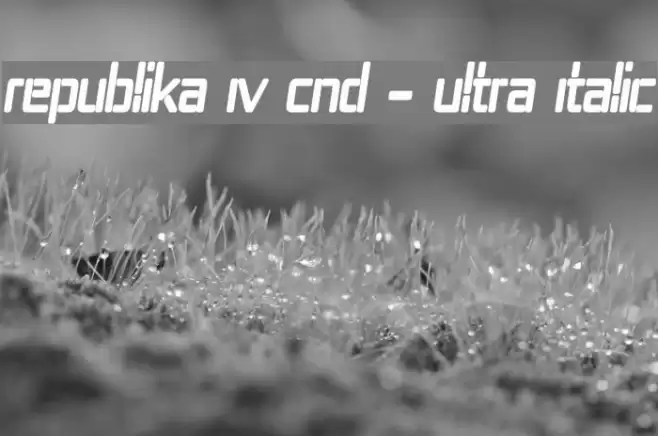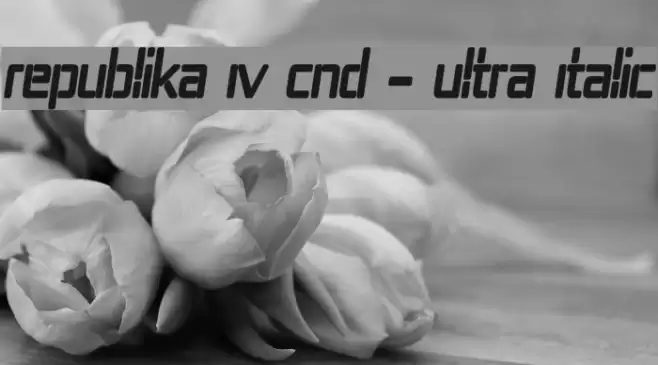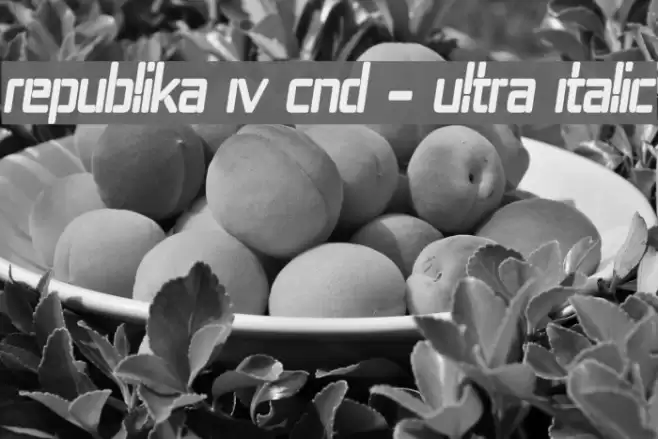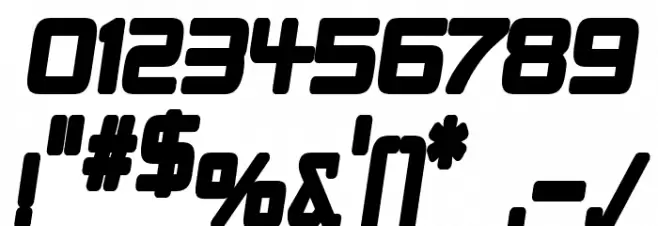
Republika IV Cnd - Ultra Italic Font
Republika IV Cnd - Ultra Italic Description
This font features a bold and ultra-condensed style with a distinctly modern and futuristic appearance. The italic slant adds a dynamic and energetic feel, making it stand out in any design. The characters are tightly spaced, enhancing its compact look. The strokes are consistent in thickness, providing a uniform appearance across all characters. Its geometric shapes and clean lines make it suitable for contemporary projects that require a strong visual impact.
A bold, ultra-condensed, and italic font with a modern, futuristic style from Uncategorized fonts.
- Proposed Projects: Ideal for technology branding, sports team logos, modern posters, and dynamic headlines.
- Character Spacing: Tight